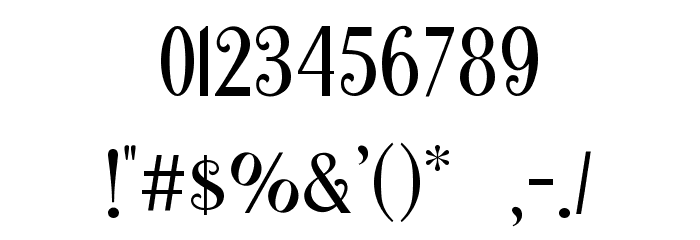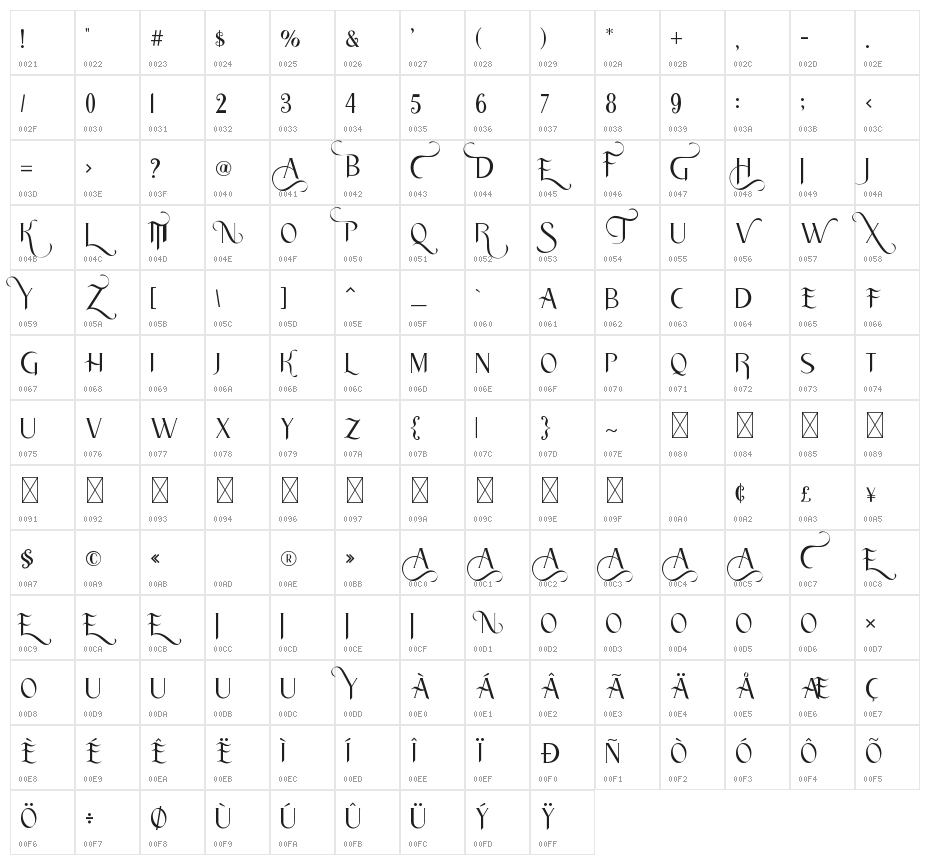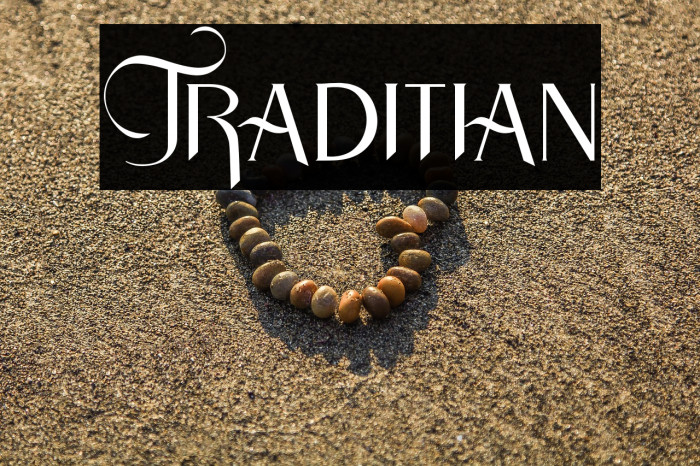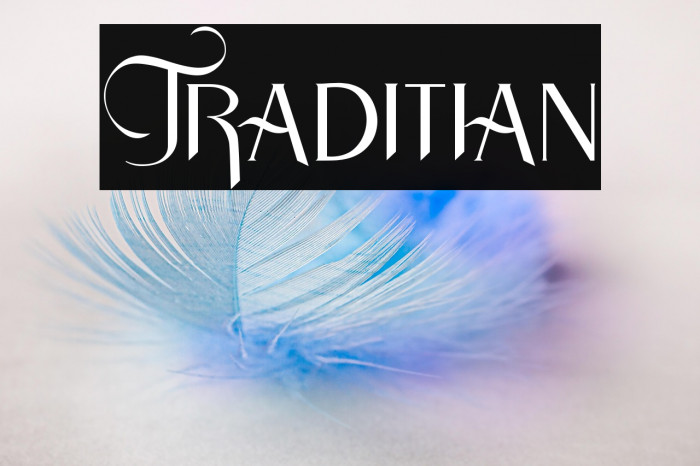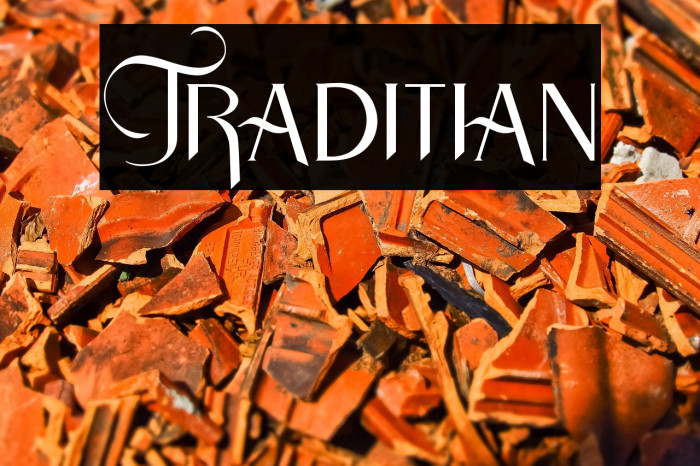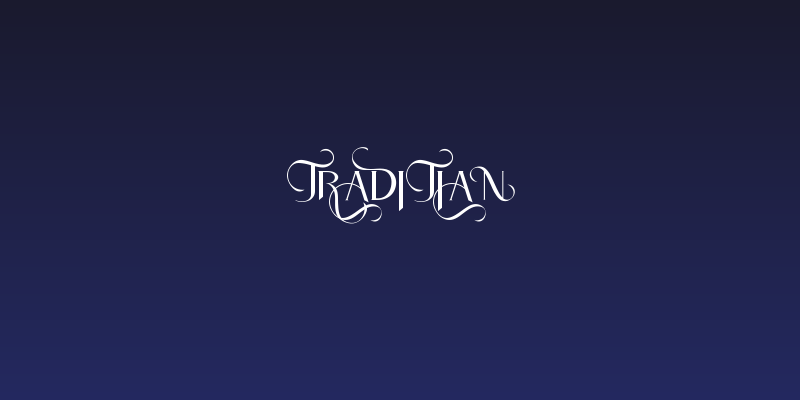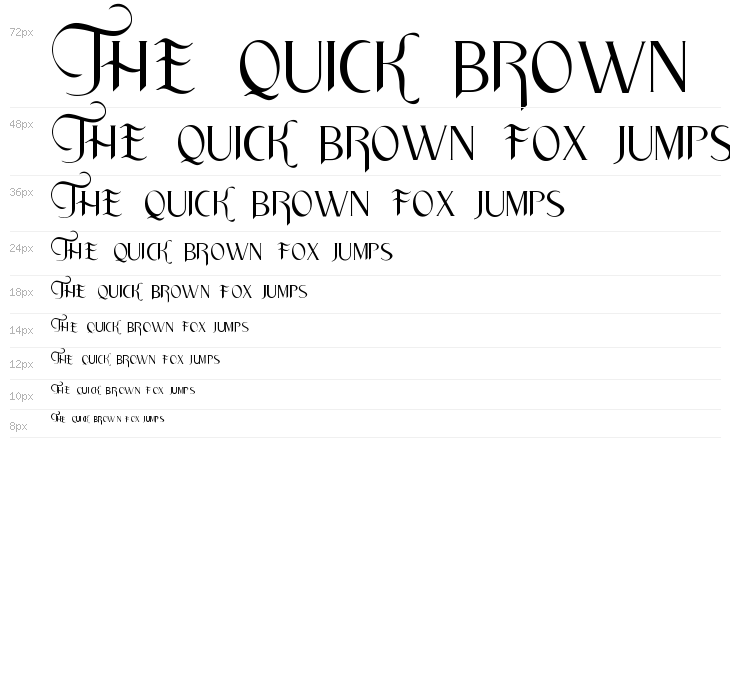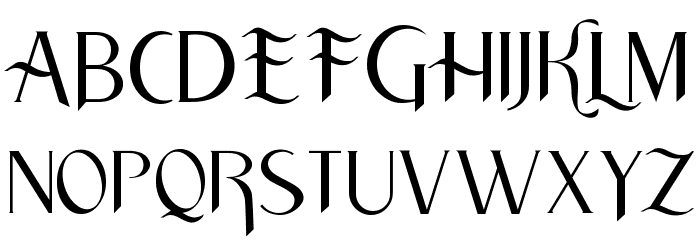
Traditian Font
Traditian Description
This font exhibits a striking blend of traditional and modern elements, characterized by its ornate and decorative uppercase letters that feature intricate flourishes and swashes. The lowercase letters maintain a more restrained elegance, offering a balance between readability and style. The numerals are bold and clear, ensuring legibility. Special characters are designed with a consistent decorative flair, enhancing the overall aesthetic. This font's unique style makes it suitable for projects that require a touch of sophistication and historical charm.
| Proposed Projects | Ideal for wedding invitations, luxury branding, historical-themed designs, and decorative headlines. |